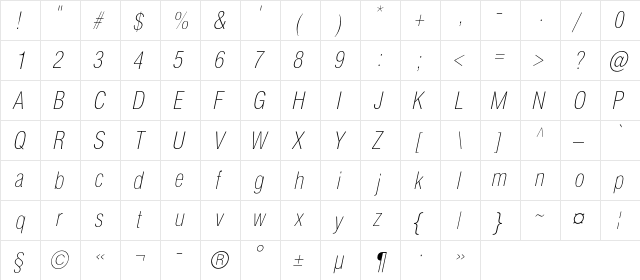
HeliosCondThin Italic Font Preview
Design Context for HeliosCondThin Typeface
HeliosCondThin is a composed and adaptable typeface that performs quietly and consistently across a wide range of design contexts. The slanted form adds forward momentum and visual energy. The delicate stroke weight brings airiness and refinement to layouts. Its narrow stance lets it pack a punch even in space-constrained designs.
Pro Tip: Use HeliosCondThin for emphasis, pull quotes, and subheadings where its slanted energy can add rhythm to the layout.